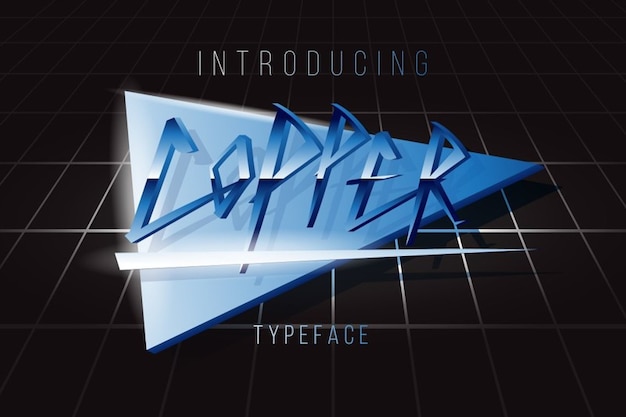
Copper
Copper Font
It is a font that takes you on a journey through the neon-soaked streets of synthwave, with a nod to the retro aesthetics of the '80s and the rebellious spirit of punk. Its bold, edgy lettering feels like the soundtrack to an underground cyberpunk club. This font screams retro-futuristic rebellion, making it the perfect choice for designs that want to capture that rebellious spirit of the past while keeping one foot firmly planted in the future.